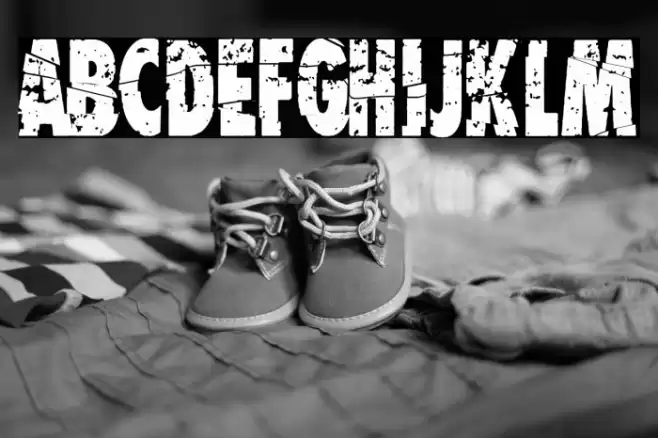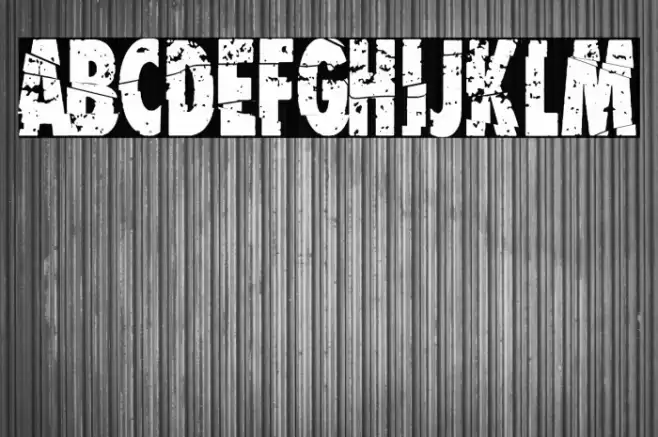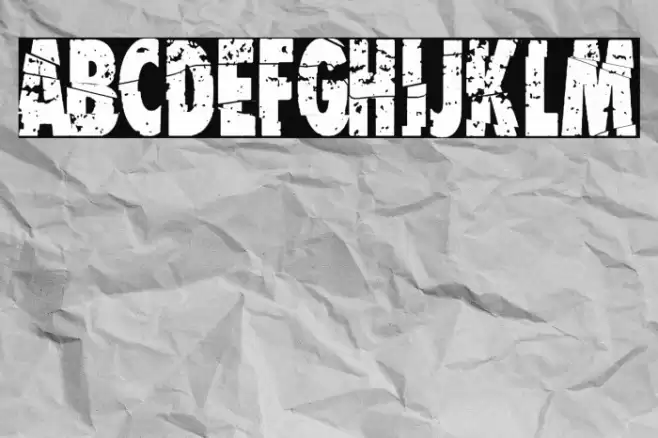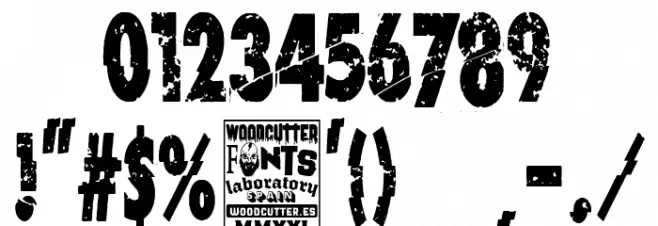
Garbage King Font
Garbage King Description
This font features a rugged, distressed style with a bold and impactful presence. Each character is designed with a grunge effect, giving it a worn and weathered look. The uppercase and lowercase letters maintain a consistent style, with rough edges and a textured appearance that suggests a sense of decay or erosion. The numbers and special characters follow the same aesthetic, ensuring a cohesive look across all text. This font is ideal for projects that require a gritty, urban feel, such as posters, album covers, or any design that aims to convey a sense of raw energy and edginess.
- Proposed Projects: Posters, album covers, urban-themed designs, streetwear branding.
- Overall Style: Grunge, Urban, Distressed